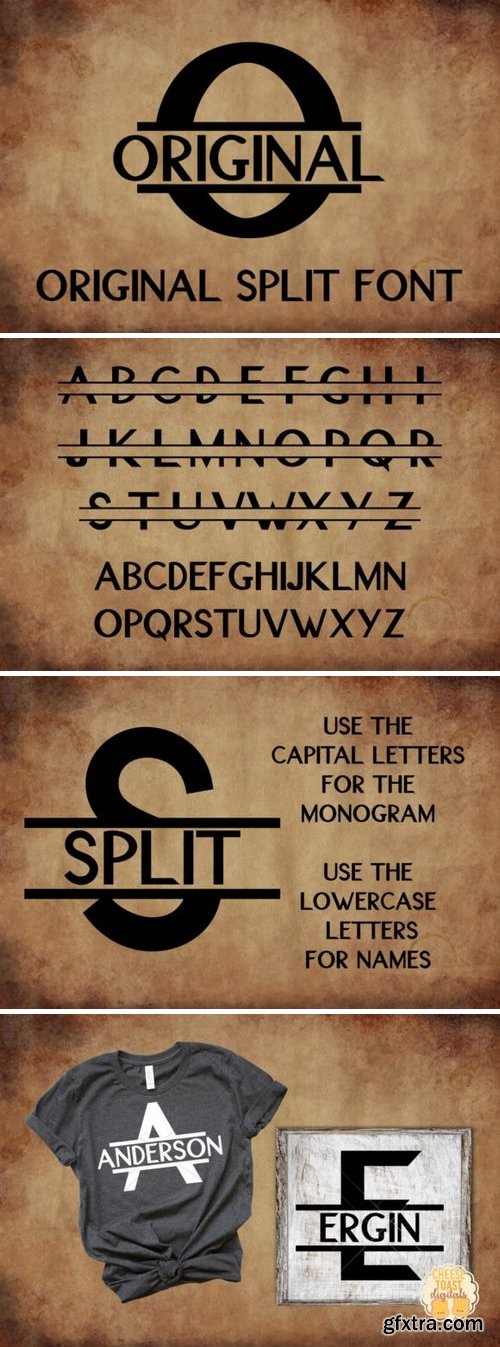
Fontbundles - Original Split Font - A Monogram Font 131715
The Original Split is an unique monogram font. Use the uppercase letters to choose your split letter and then fill it in with the lowercase letters. It makes it super easy to personalize any gift or projects.